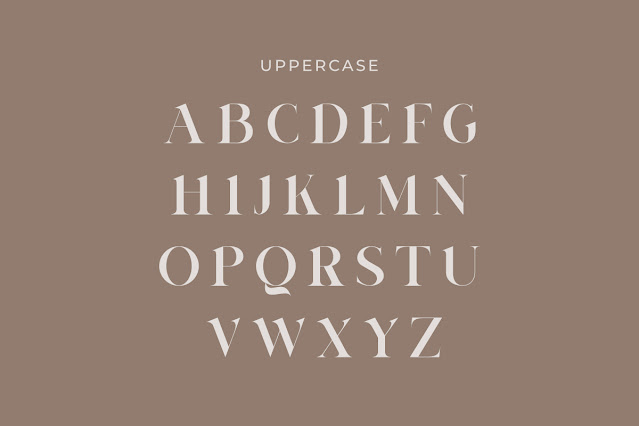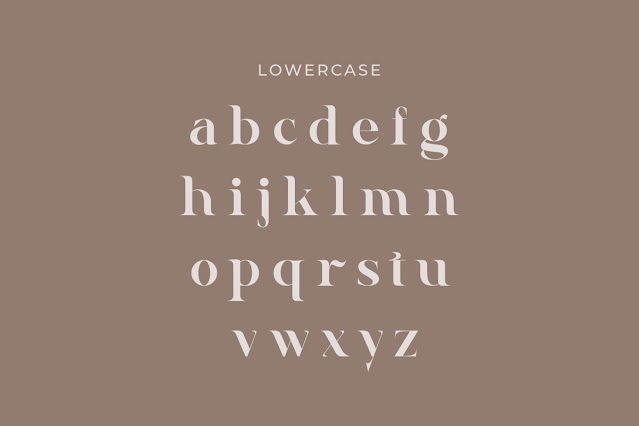
Better Monday Font is a standout serif font known for its modern elegance and high contrast between thick and thin strokes. Its sharp serif angles give it a bold yet refined appearance, making it perfect for projects that need a touch of class. Whether you’re designing titles, logos, or promotional materials, Better Monday brings a sense of sophistication that sets your work apart.
As part of the display fonts category, Better Monday is designed to capture attention. It’s often featured in posters, advertisements, and magazine covers where visual impact is essential. Despite its boldness, the font maintains great legibility, ensuring your message remains clear and professional.
The font’s uniquely shaped letters add character and flair, helping your design make a strong and memorable impression. Better Monday is a favorite among designers who want to express creativity while keeping their work visually balanced and striking.